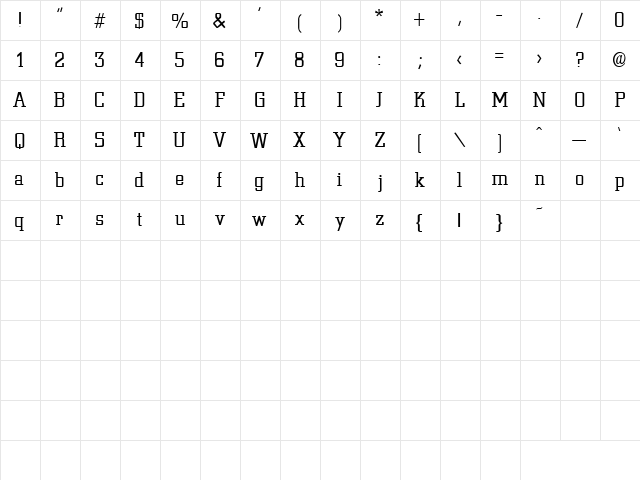
Assassination 8 Regular Font Preview
Assassination 8 Regular
Design Context for Assassination 8 Typeface
Assassination 8 is a composed and adaptable typeface that performs quietly and consistently across a wide range of design contexts.